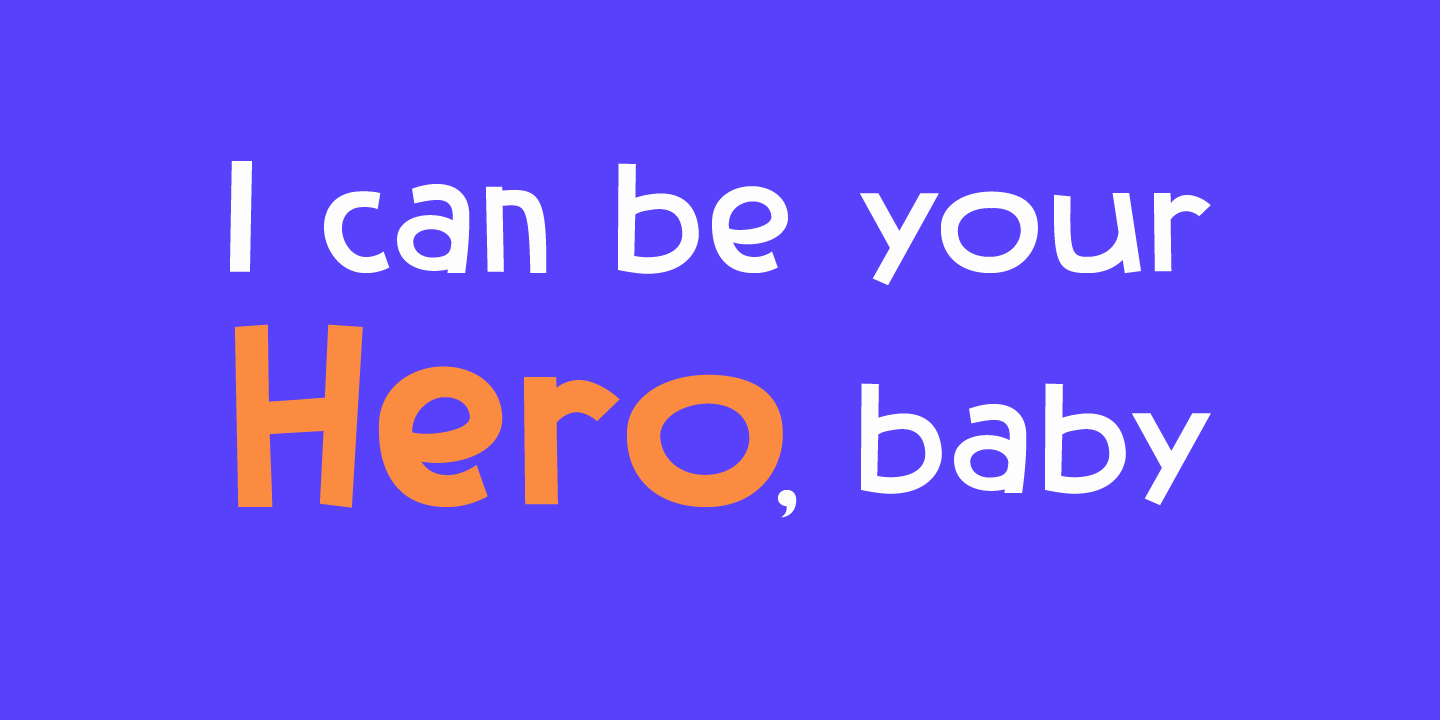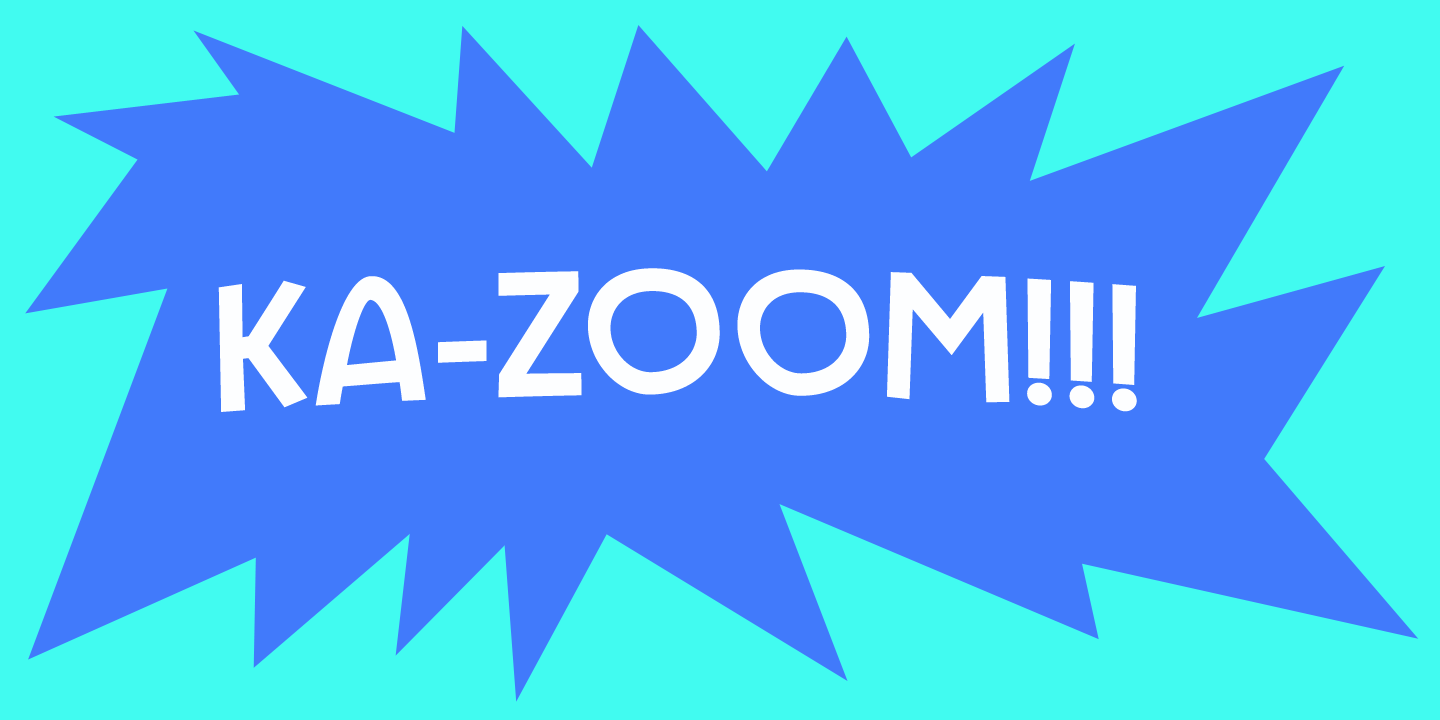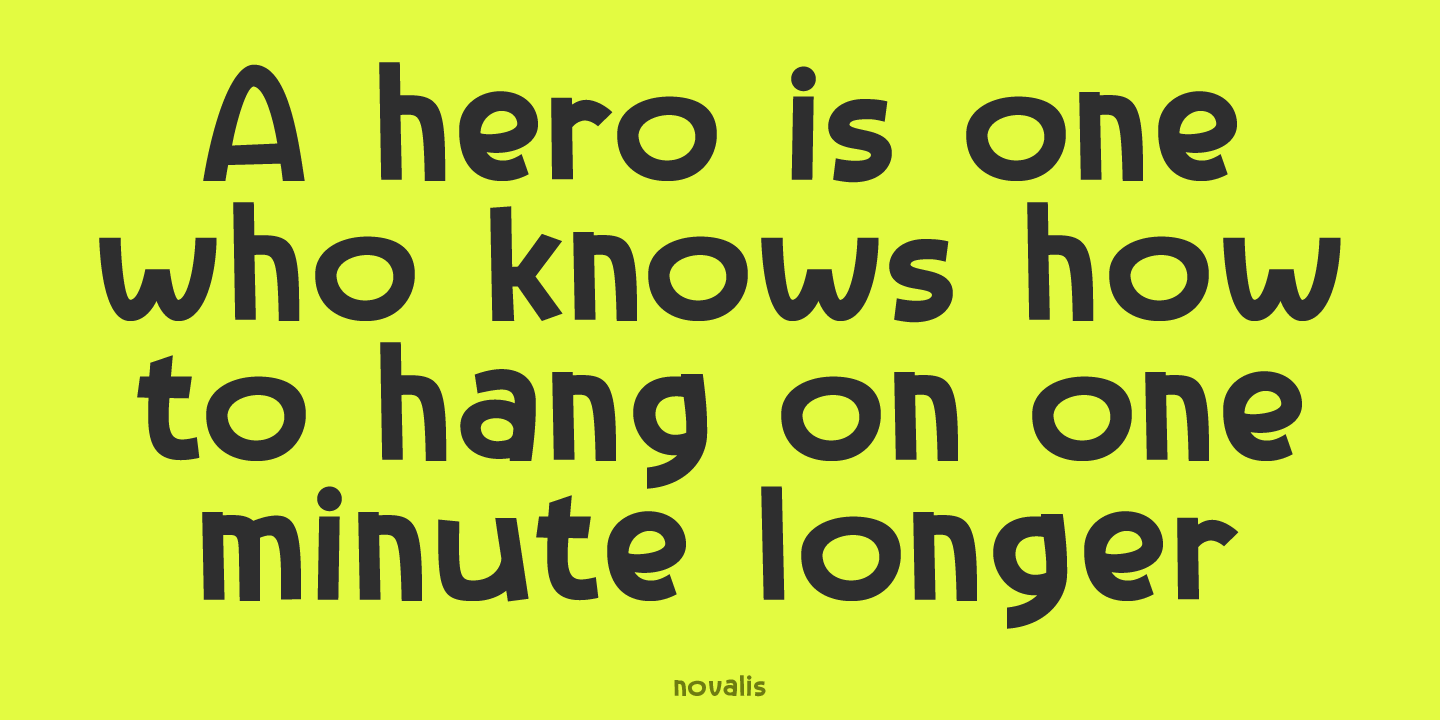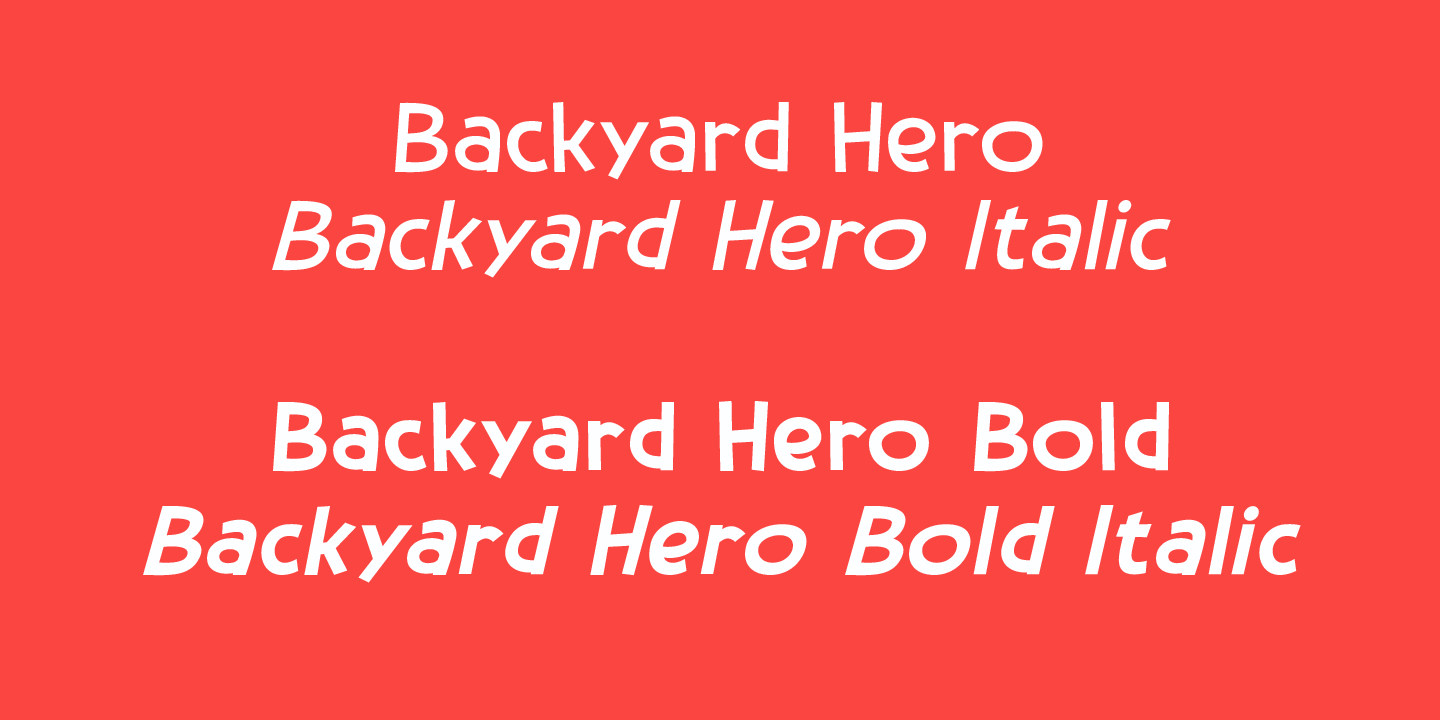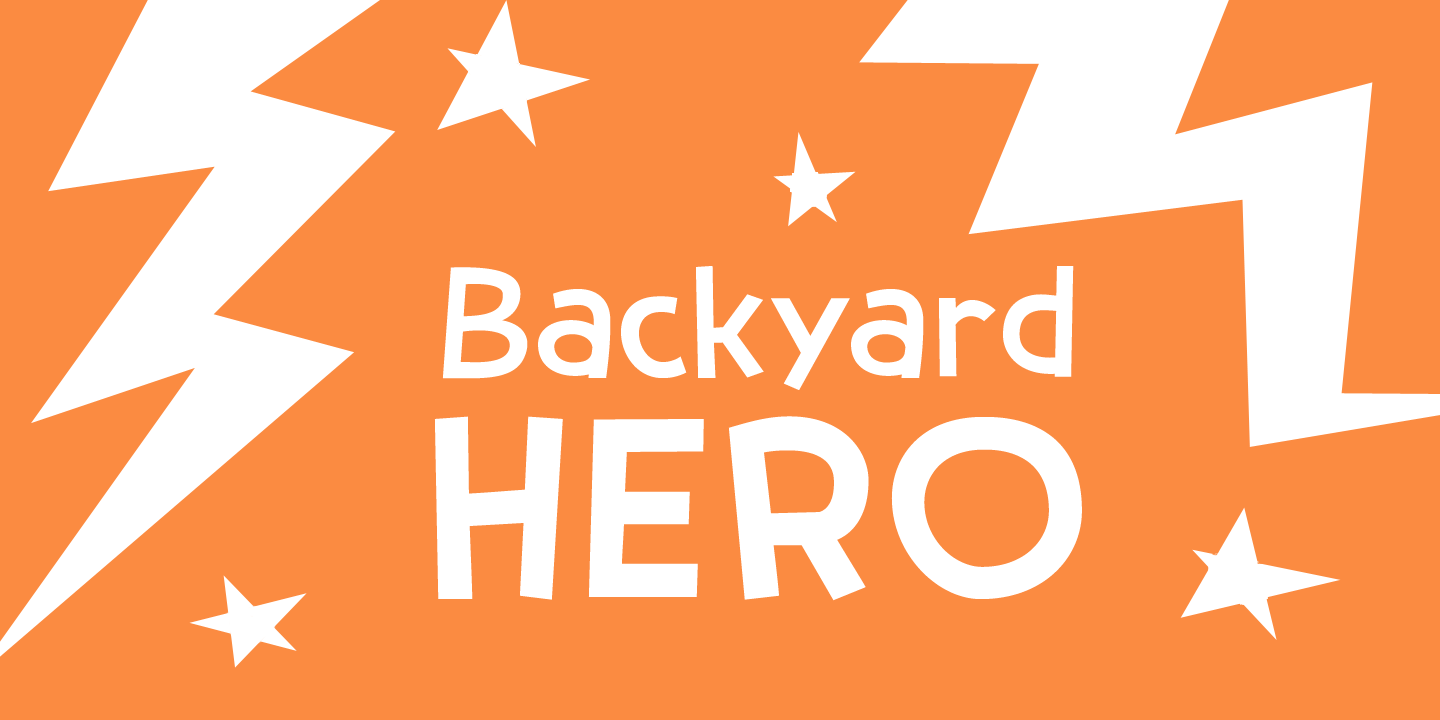
About Backyard Hero
Judging the amount of superhero series, I thought it was time for a superhero-font. Meet Backyard Hero – your friendly neighbourhood good guy. He will fight off aliens and criminal masterminds, help old ladies across the street and give your designs an…